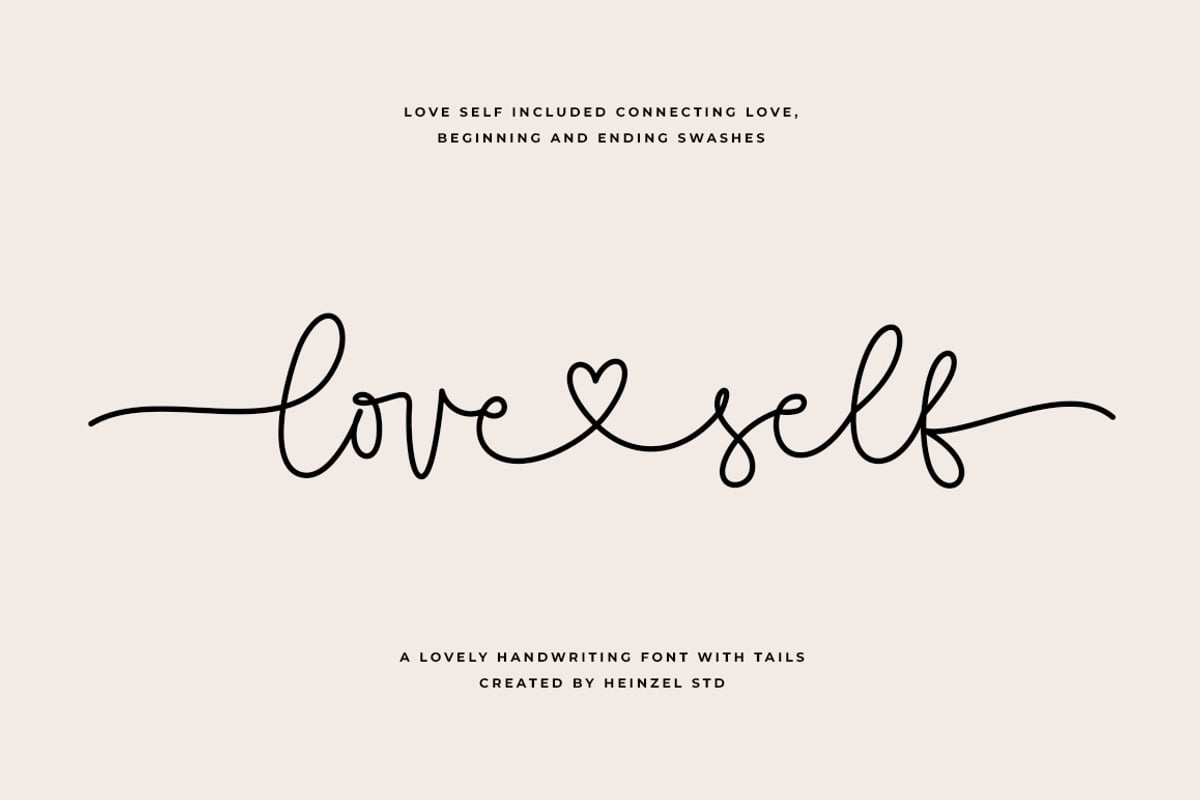
Love Self Lovely Script Font
Love Self is a romantic script font that transforms any design into an elegant, swash-filled work of art.
Delicate strokes and elaborate flourishes define this beautiful typeface, making it an irresistible choice for designers who want to bring a sense of refinement and romance to their work. Its lavish beginning and ending swashes add an unmistakable air of sophistication to every letter.
Whether you're crafting wedding invitations, building a luxury brand identity, designing inspiring quotes, or creating eye-catching social media content, Love Self delivers a timeless allure that draws viewers in and keeps them captivated.
Love Self Features:
- Regular Version
- Uppercase and Lowercase characters
- Numerals and Punctuation
- Beginning and Ending Swashes
- Connecting Love ligatures
- PUA Encoded
- Multilingual language support (21 languages including English, French, Spanish, German, Italian, Portuguese, and more)